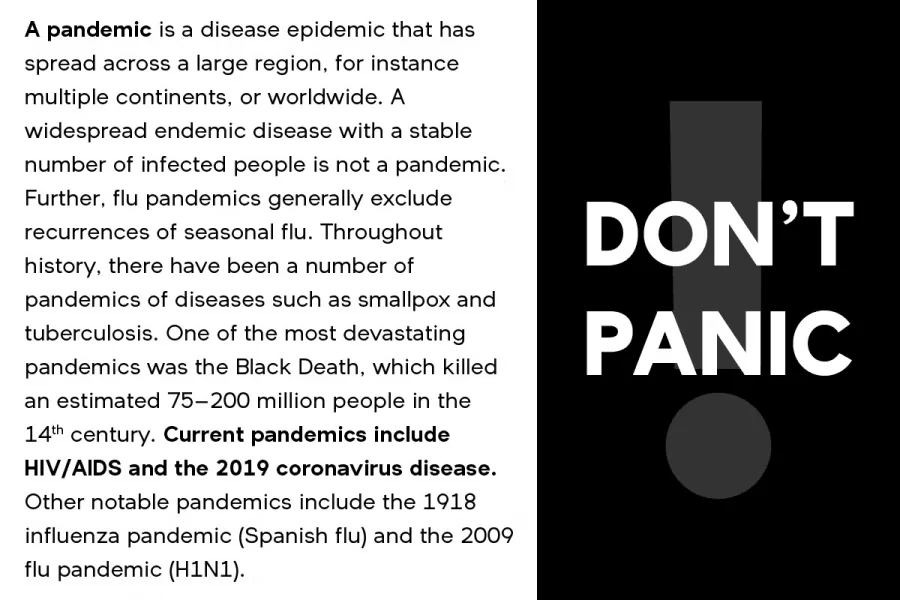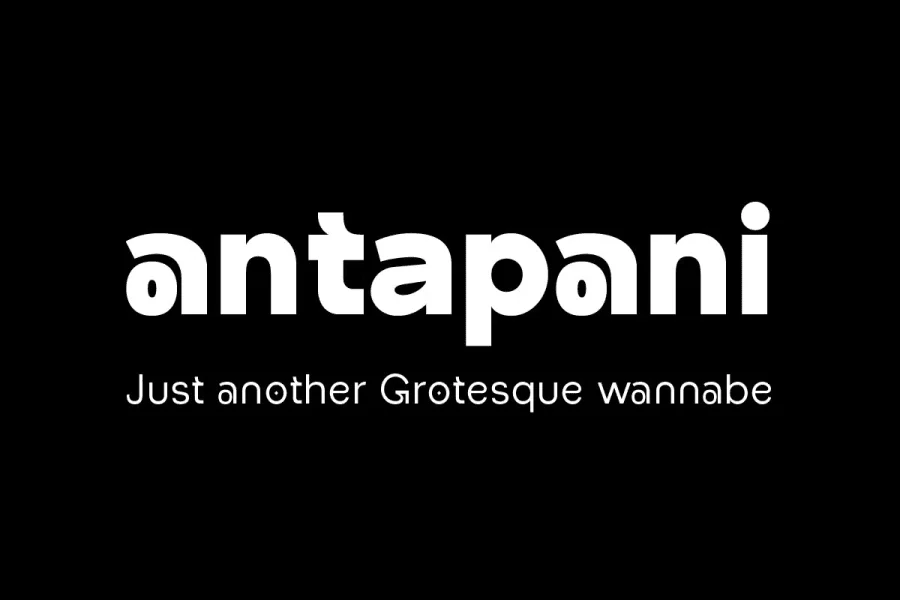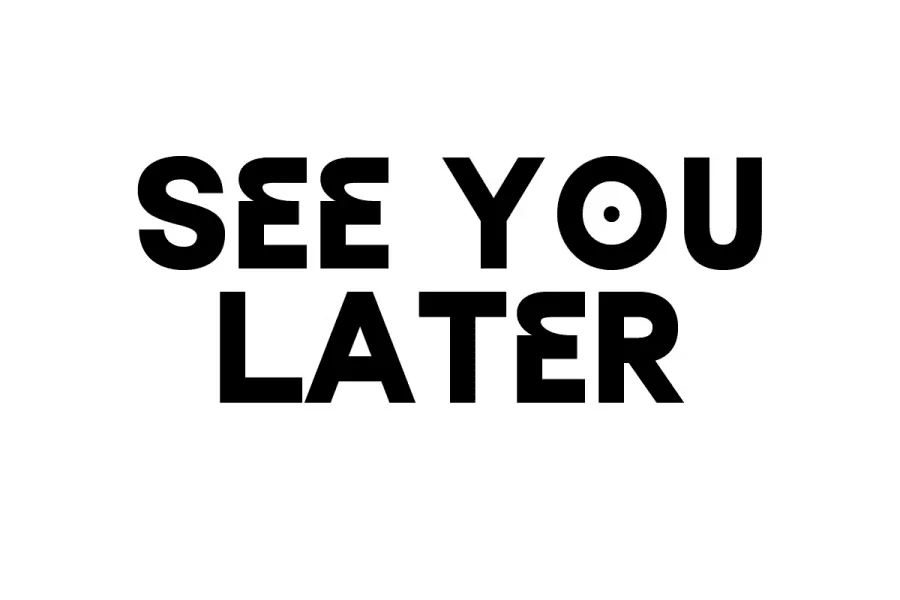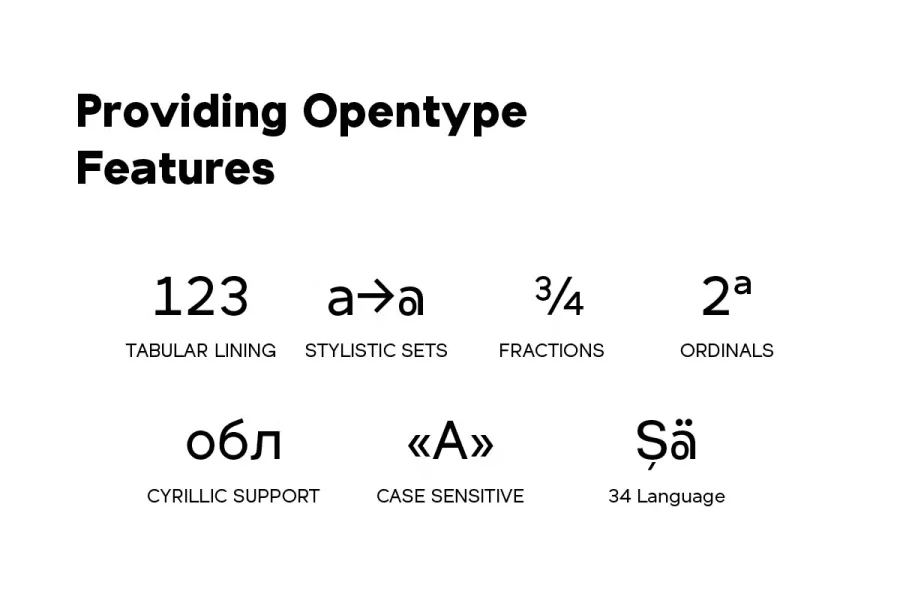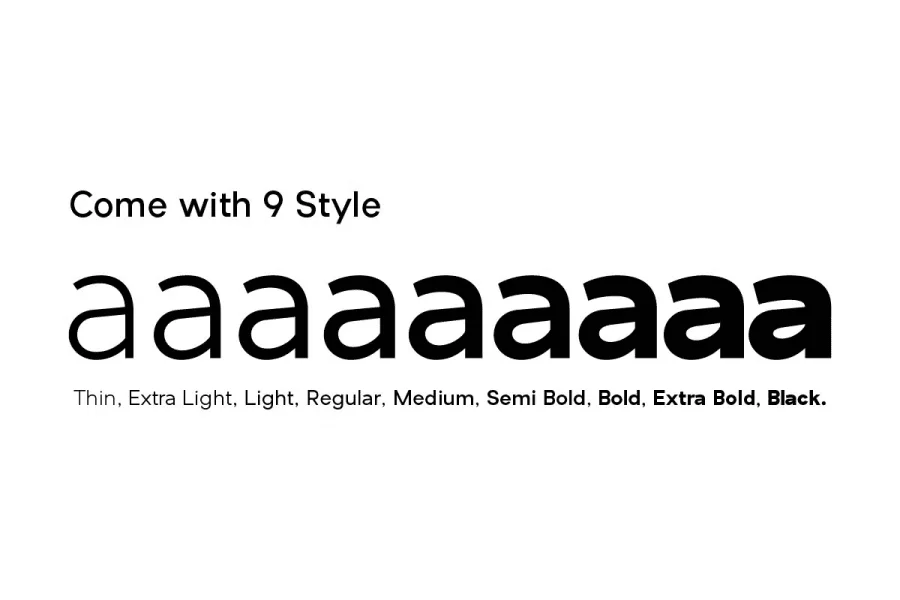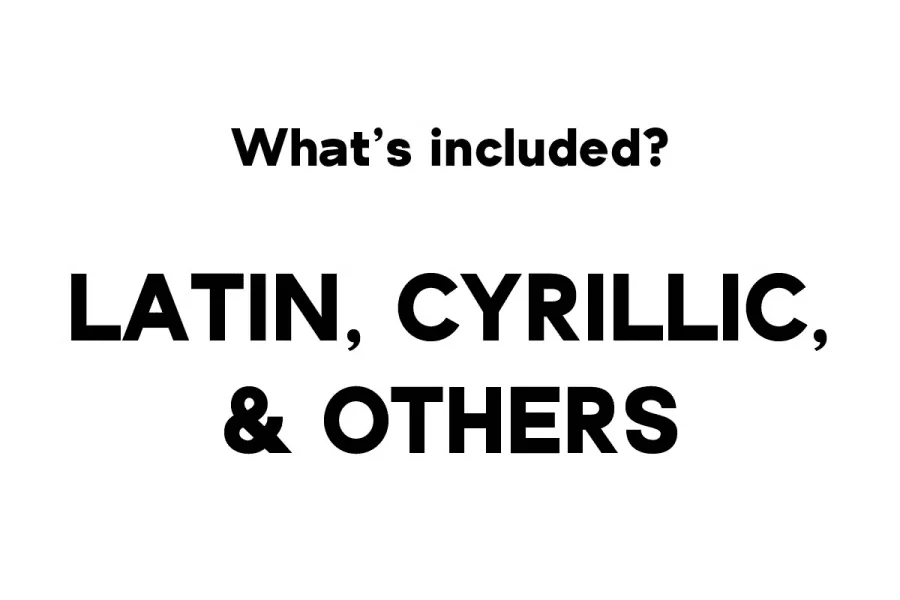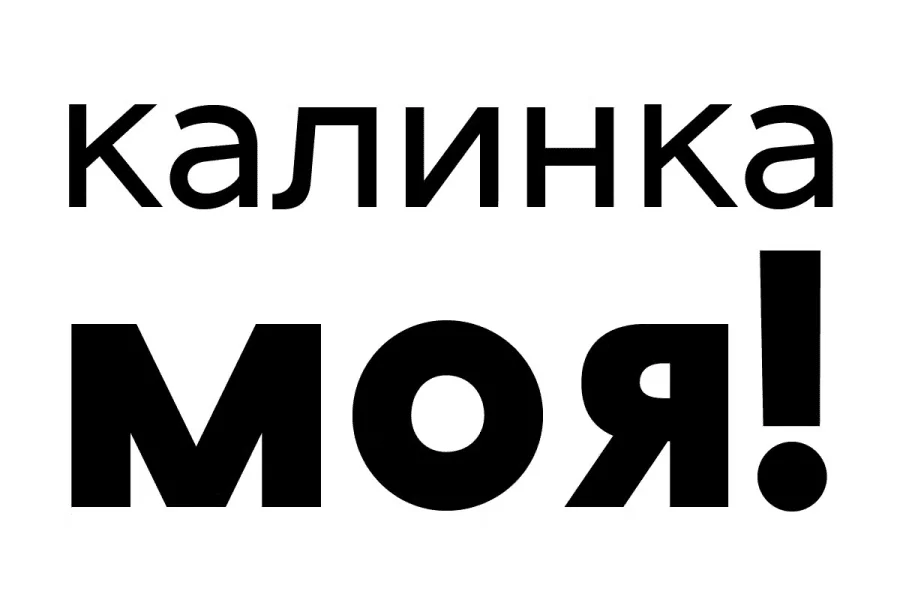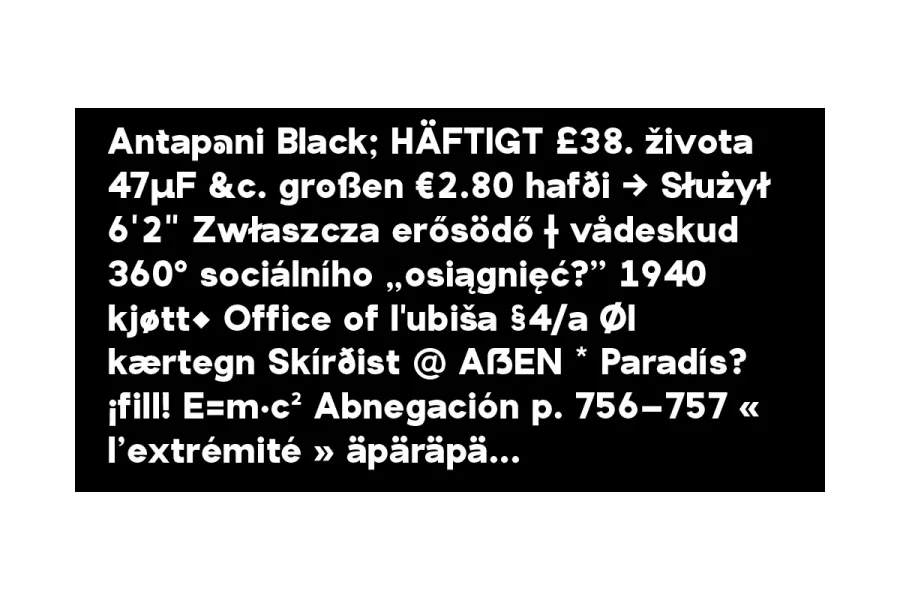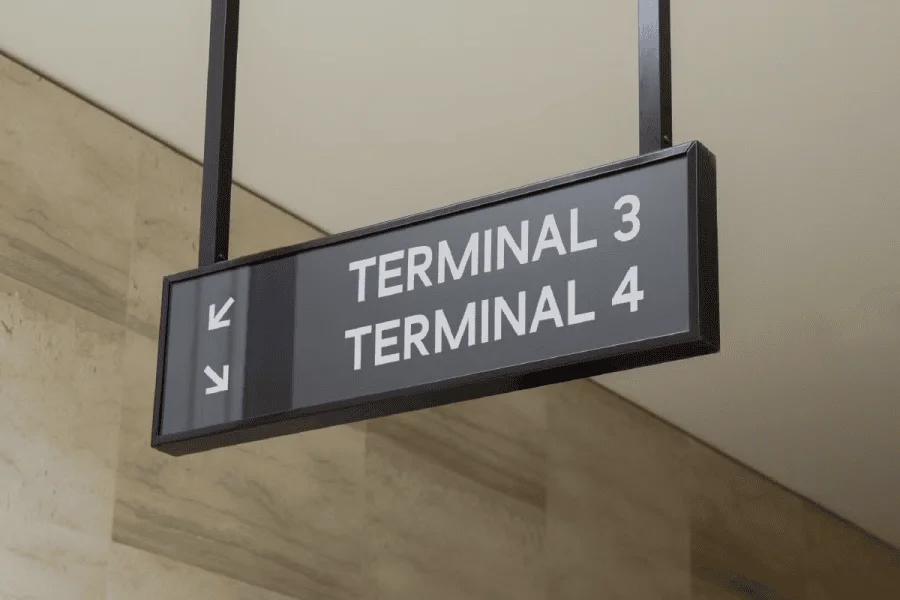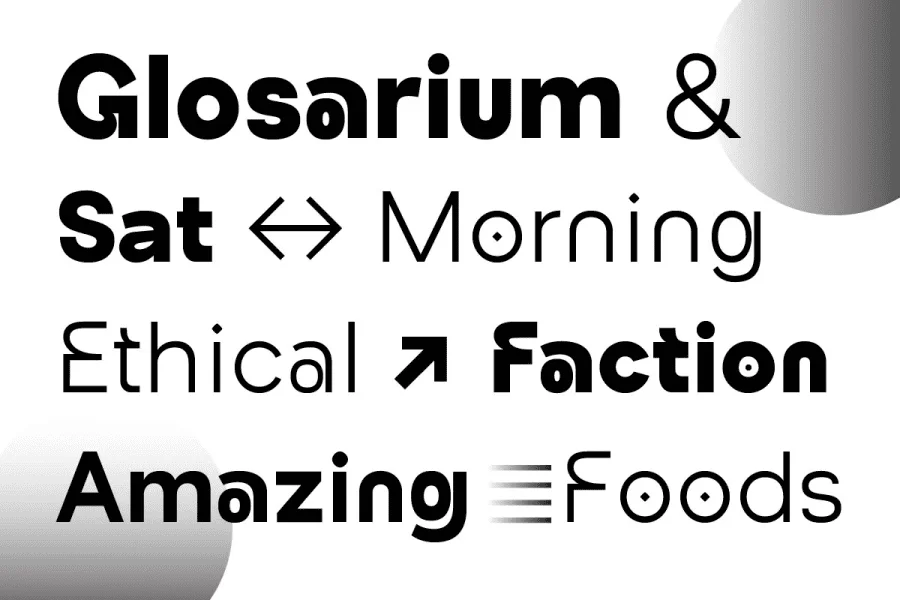
Antapani is a Grotesk sans style with some stylistic style to some letter. Designed for readability but can also function as a display text. Come with 9 style from Thin to Extra Bold so you can choose which style you want. Designed with opentype features in mind. Each weight includes extended language support (+ Cyrillic), fractions, tabular figures, arrows, ligatures and more. Perfectly suited for graphic design and any display use. It could easily work for web, signage, corporate as well as for editorial design.